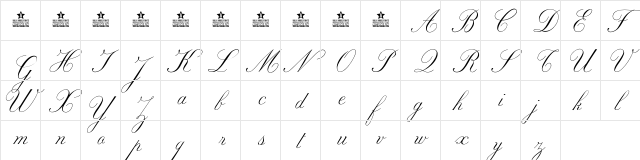
Marriage Moment Personal Use Regular
| Foundry | Billy Argel |
| Designer | Billy Argel |
Design Context for Marriage Moment Personal Use Typeface
Marriage Moment Personal Use is a composed and adaptable typeface that performs quietly and consistently across a wide range of design contexts.